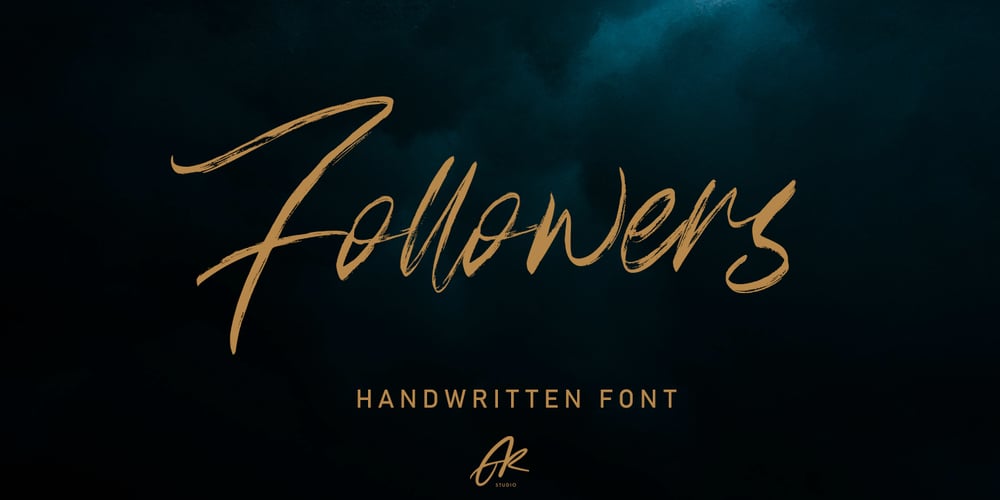
Followers Font Family was designed by Asep Rendi and published by Arendxstudio. Followers contains 1 styles and family package options. Followers is a textured brush font, a contemporary approach to design, naturally handmade and containing underscores, alternates and ligatures that will make your design more attractive. Suitable for use in title design such as clothing, invitations, book tittles, stationery designs, quotes, branding, logos, greeting cards, t-shirts, packaging designs, posters and more. Features : • Character Set A-Z • Numerals & Punctuations (OpenType Standard) • Accents (Multilingual characters) • Ligature • Alternate I really hope you enjoy it – comments and likes are always welcome and accepted: I love followers! Don’t hesitate to send a message if you have a problem or question.